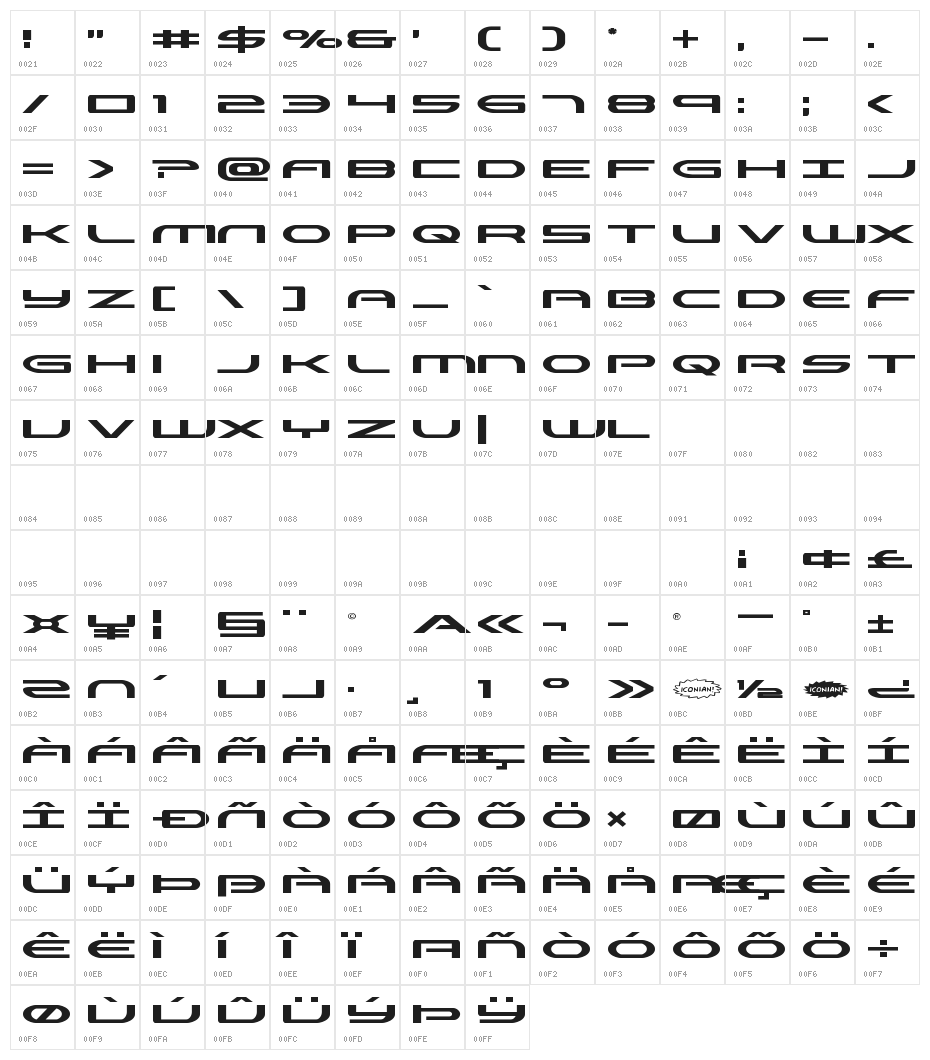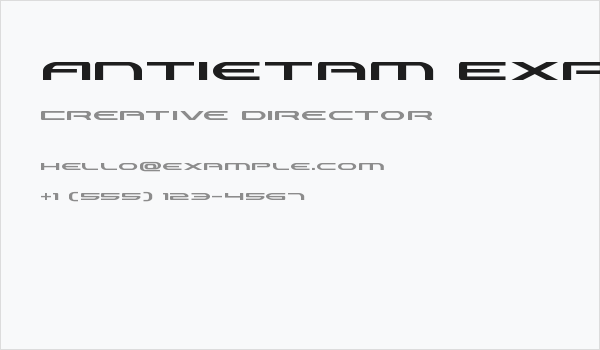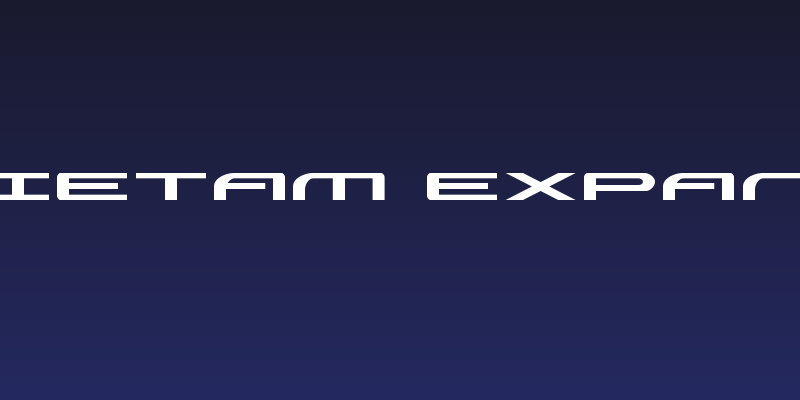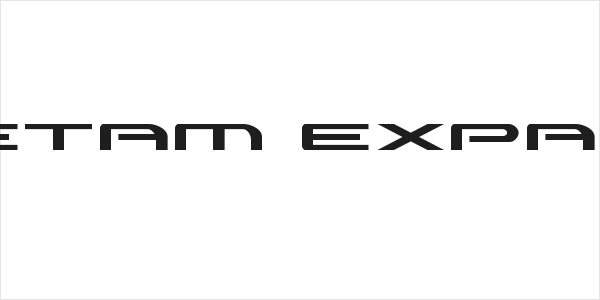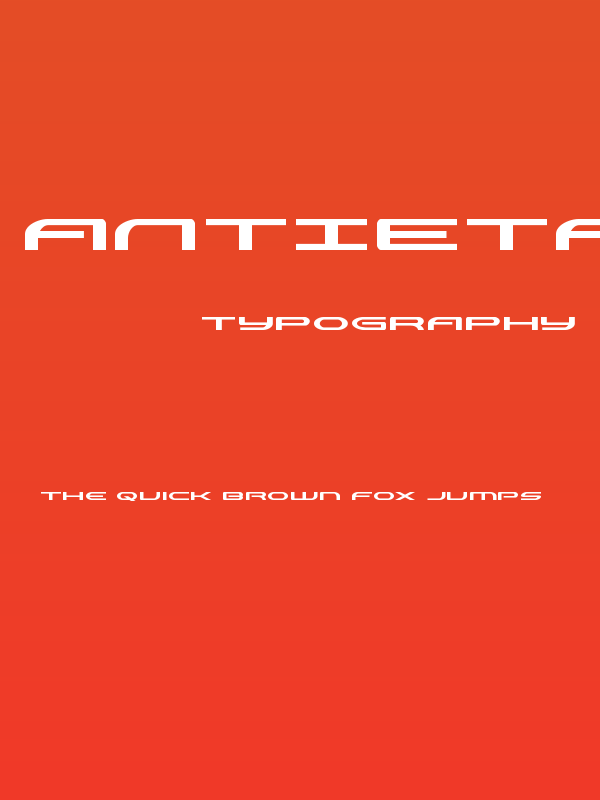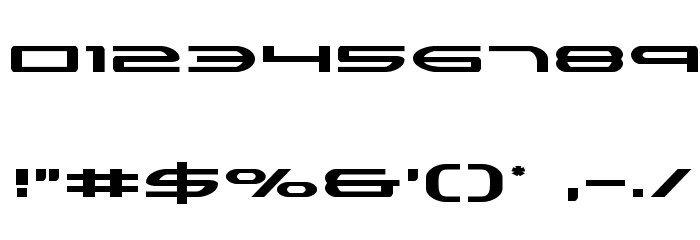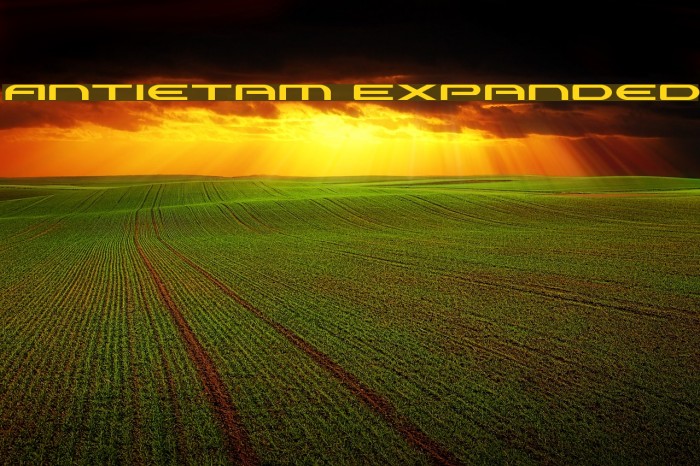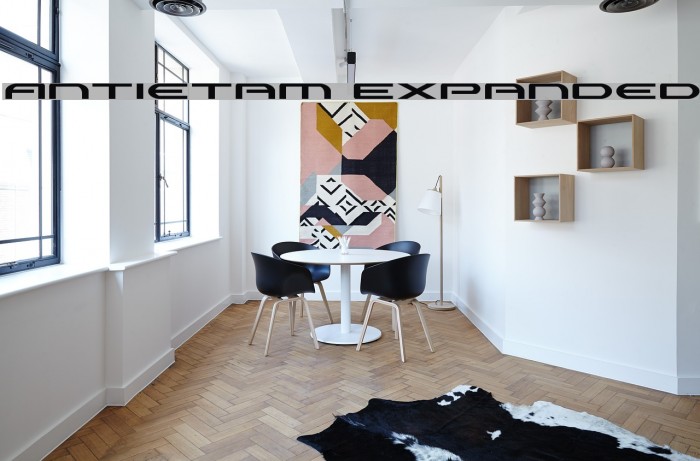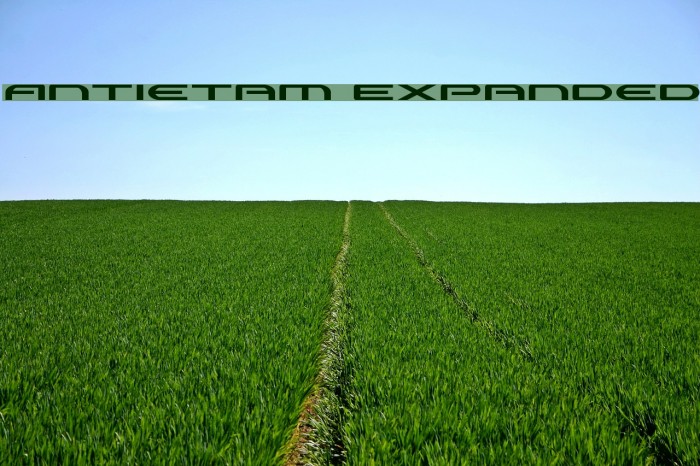
Antietam Expanded Font
Antietam Expanded Description
This font features a futuristic and sleek design, characterized by its expanded letterforms and geometric shapes. The uppercase and lowercase letters maintain a consistent style, with rounded edges and a uniform stroke width that gives it a modern and streamlined appearance. The numerals and special characters are designed to match the overall aesthetic, ensuring a cohesive look across all text. The font's expanded width allows for greater readability and impact, making it suitable for various design applications.
| Proposed Projects | Ideal for technology branding, sci-fi themed projects, modern advertising, and digital interfaces. |